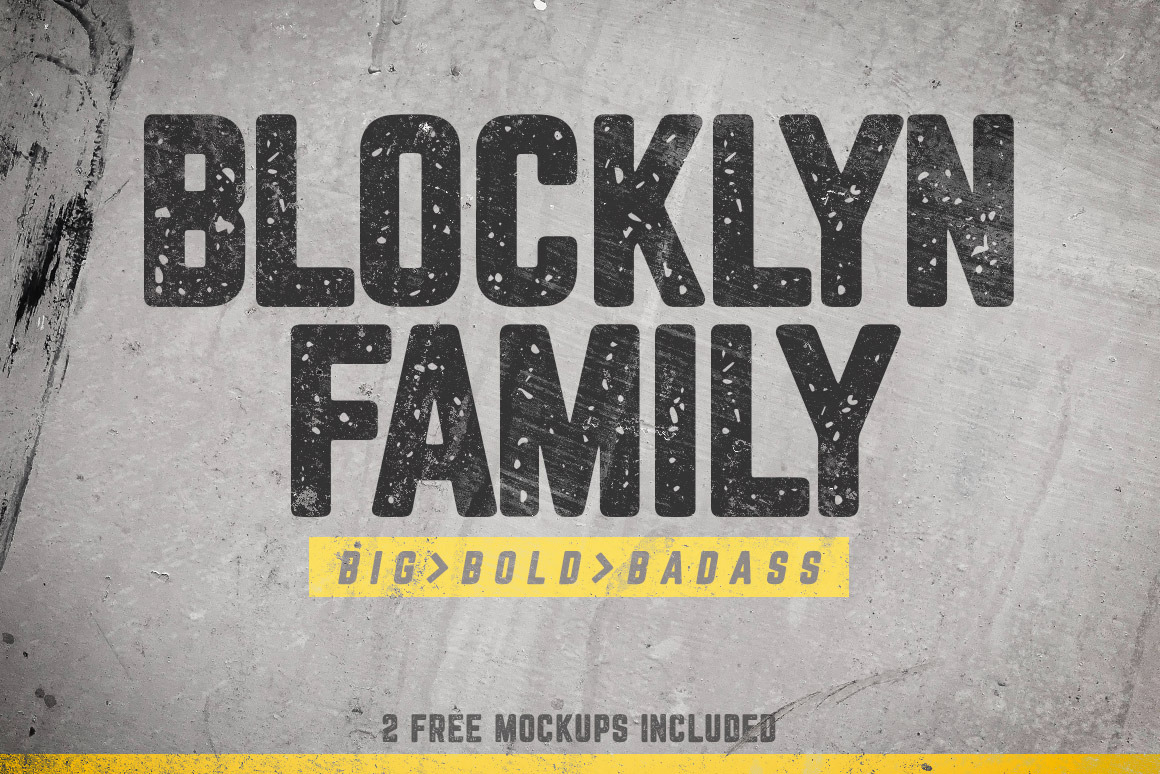
Blocklyn Font Family + Mockups
The Blocklyn Font Family is big, bold, and badass, but won't be relegated only to a masculine design style.
Included are 4 fonts: Condensed, Condensed Italic, Grunge, and Grunge Italic, plus 2 hardcore, 3,000 x 2,000 pixel PSD mockups templates.
This font includes standard and extended Latin characters as well as numbers and symbols.